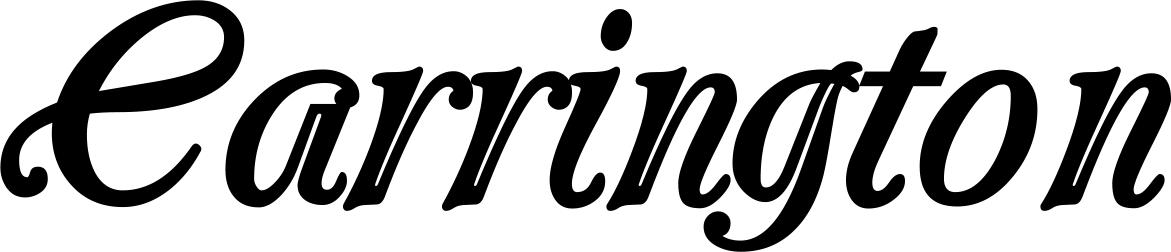
Carrington Font
Designed byBright Ideas
Today’s font is a retro script font. This font is called Carrington and you can get a retro, elegant, and classic feeling from it.
You can use it to design vintage event banners and flyers, movie titles, classic books, letters, and personal blog and channel banners. This whiskey script font is a unique opportunity and it will make any text more classy.